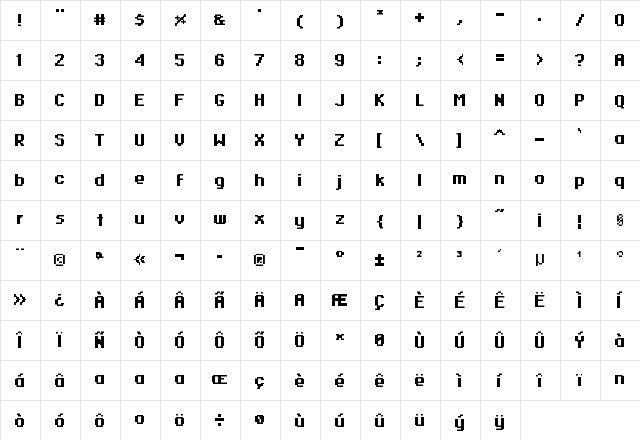
EleanorBold Regular
| Designer | lucasmotta |
Design Context for EleanorBold Typeface
EleanorBold is a composed and adaptable typeface that performs quietly and consistently across a wide range of design contexts. The heavy weight commands attention and anchors typographic hierarchies.